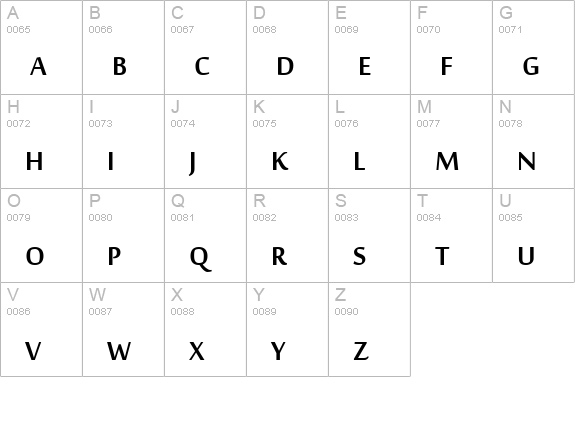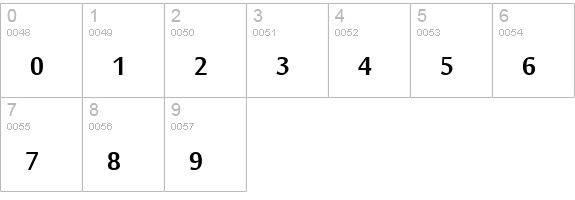
MoolBoran font is a stunning display typeface that exudes elegance and sophistication. Its intricate details and unique curves make it a standout choice for any design project that requires a touch of class. With its graceful strokes and versatile letterforms, MoolBoran font is perfect for adding a sense of luxury to logos, invitations, packaging, and more. The best part? MoolBoran font is available for free download at FontsMarket.com. This means you can easily access this beautiful typeface and elevate your designs without any cost. Don't miss out on the opportunity to enhance your creations with the timeless charm of MoolBoran font. Download it today and let your creativity shine!